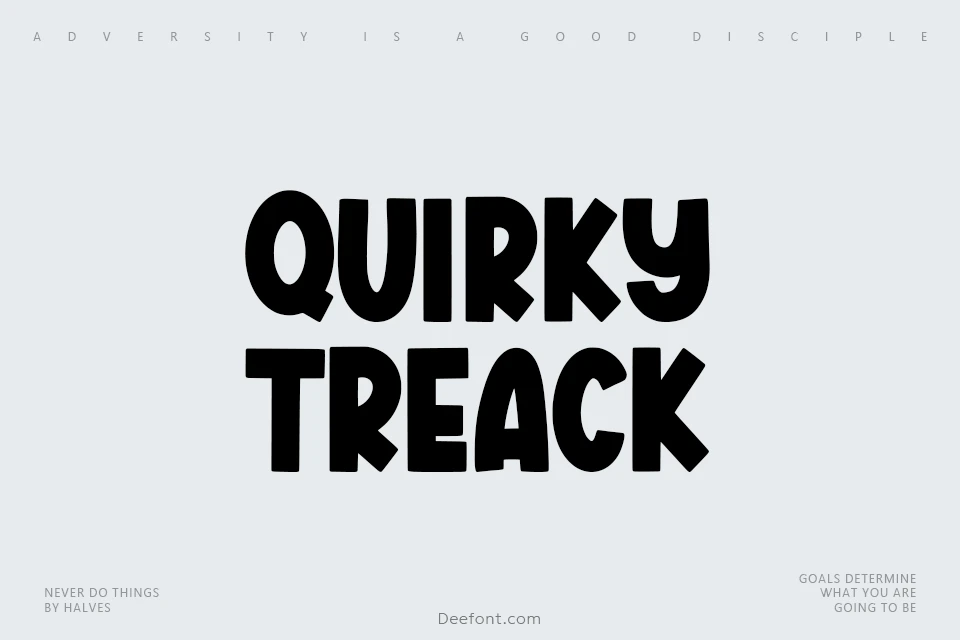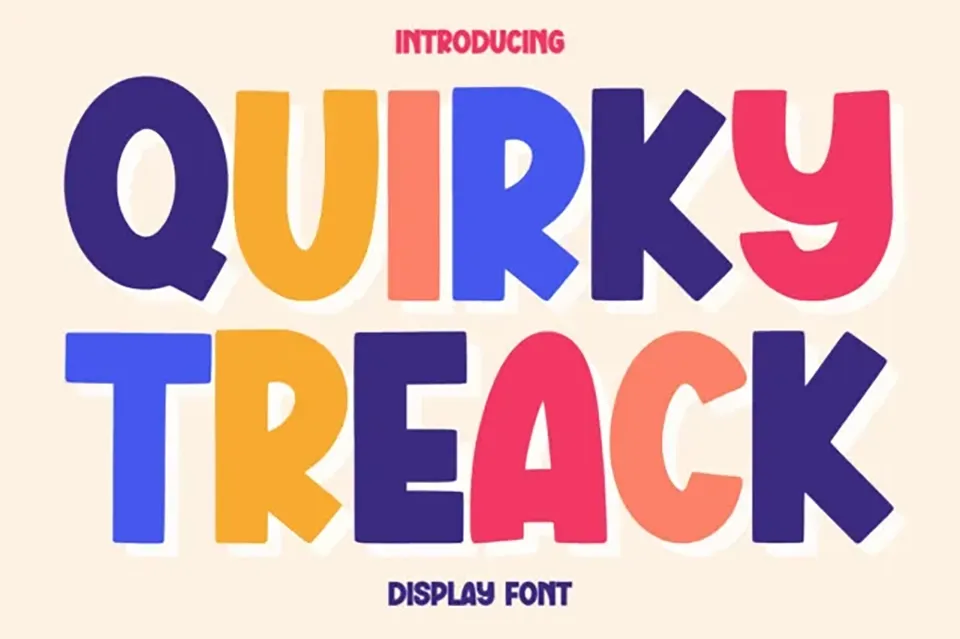
Quirky Treack Font
Quirky Treack Font is a fun and quirky display font, perfect for a wide range of creative projects. Its playful, blocky characters are ideal for printing, packaging, book covers, titles, headlines, invitations, branding, and more. The font brings a vibrant, cheerful energy to any design, making it especially suitable for children-themed works, celebrations, and eye-catching displays.